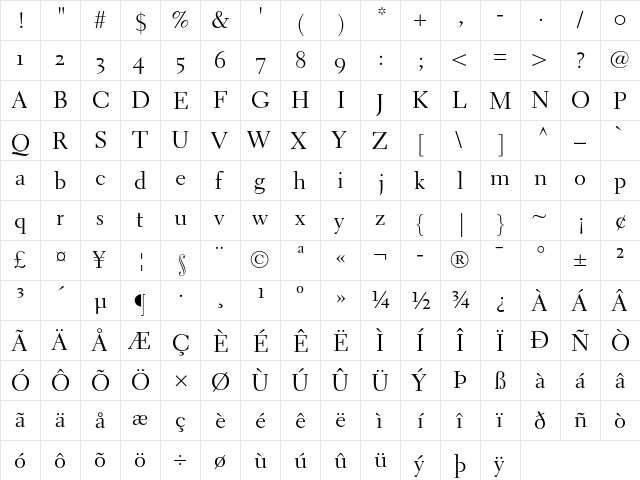
Electra LH OsF
Design Context for Electra LH Typeface
Electra LH offers clean, dependable letterforms without strong stylistic allegiance, making it a practical choice for designers who need flexibility.
Pro Tip: Use Electra LH in both headline and body roles to test its range before committing to a single application.